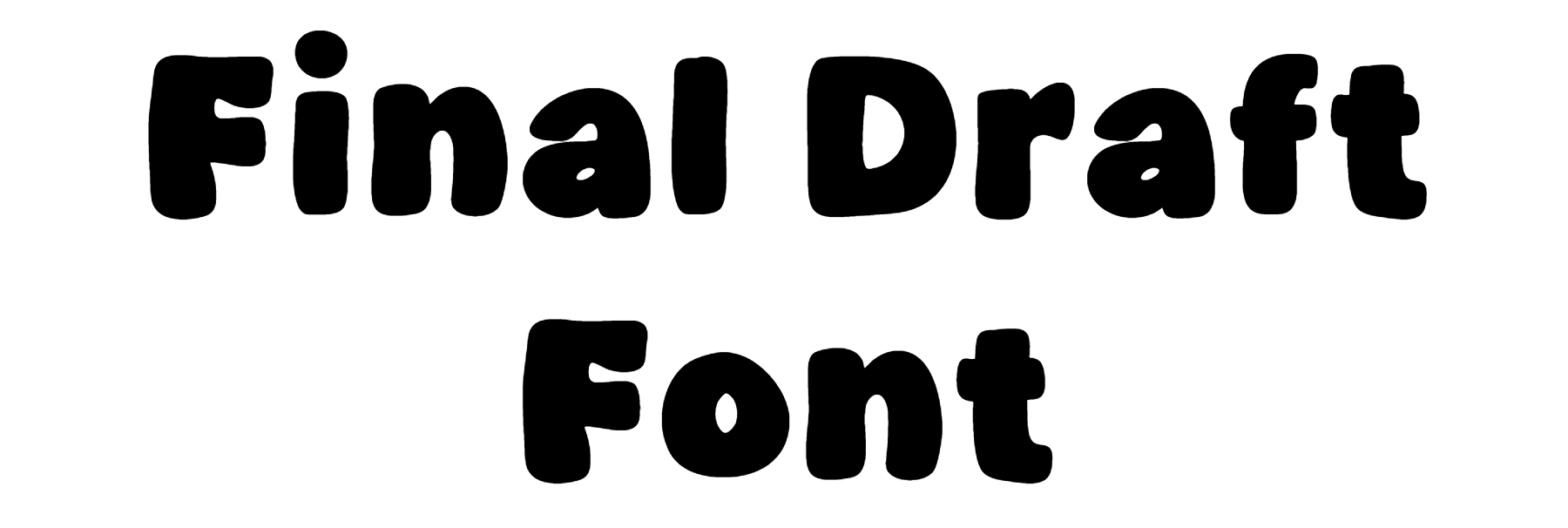
Final Draft
Final Draft is a cartoon font made by MJType (Muhamad Junaid) (2025). Its bouncy, rounded letters feel playful, like lettering from a cartoon or a comic book. It's a free download, and you can try it with your own text in the preview above first.
What You Can Type With Final Draft
You get every letter from A to Z in both cases and all the numbers from 0 to 9, which means Final Draft can handle full sentences, dates and prices. Everyday marks like &, !, ? and @ are there too. Thanks to its accented letters, it also works for Spanish, French, German, Portuguese and Italian, not just English.
Where Final Draft Works Best
Designers usually reach for fonts like Final Draft when they're making kids' books, birthday invites and fun YouTube thumbnails. Its lowercase letters are tall compared to the capitals, which keeps it readable at smaller sizes. Cartoon fonts are great for short, fun lines. If you place it over a busy photo, add a thick outline or a drop shadow so it stays readable.
Who designed Final Draft font?
Does Final Draft support accented letters?
Yes. Final Draft includes the accented letters needed for Spanish, French, German, Portuguese and Italian, so it works for more than just English.